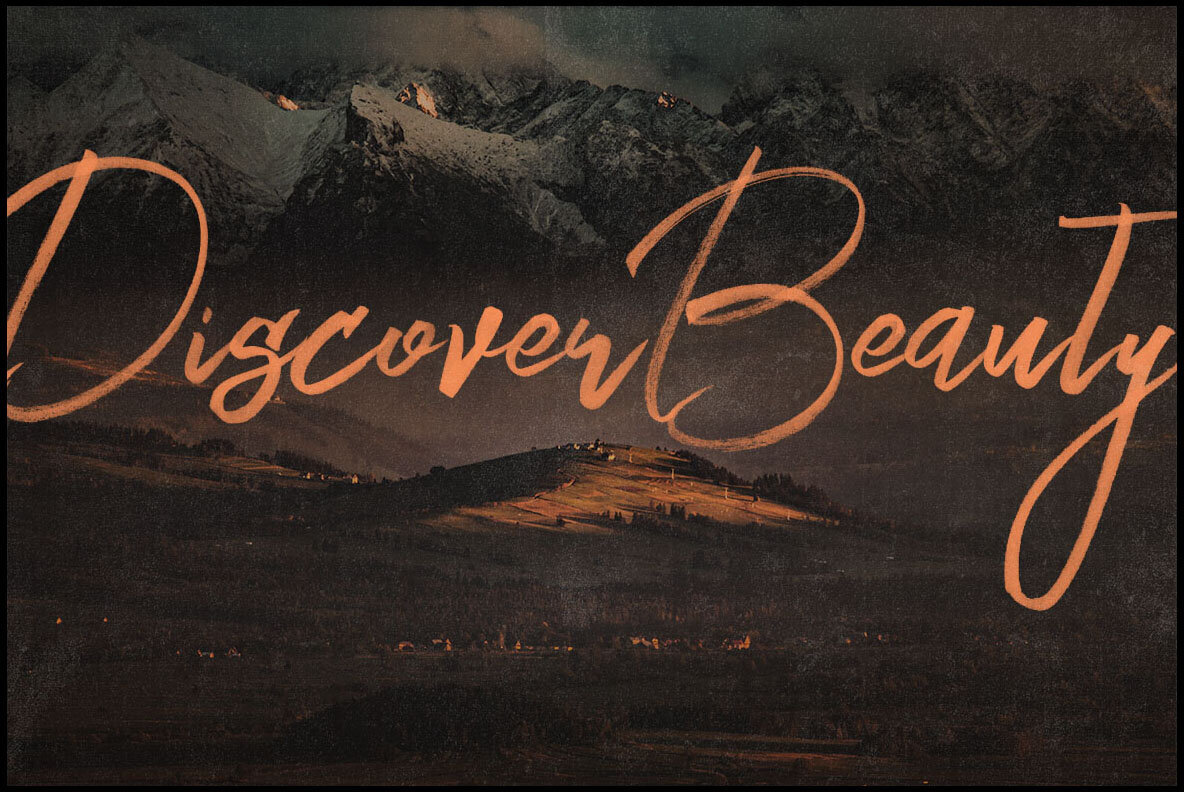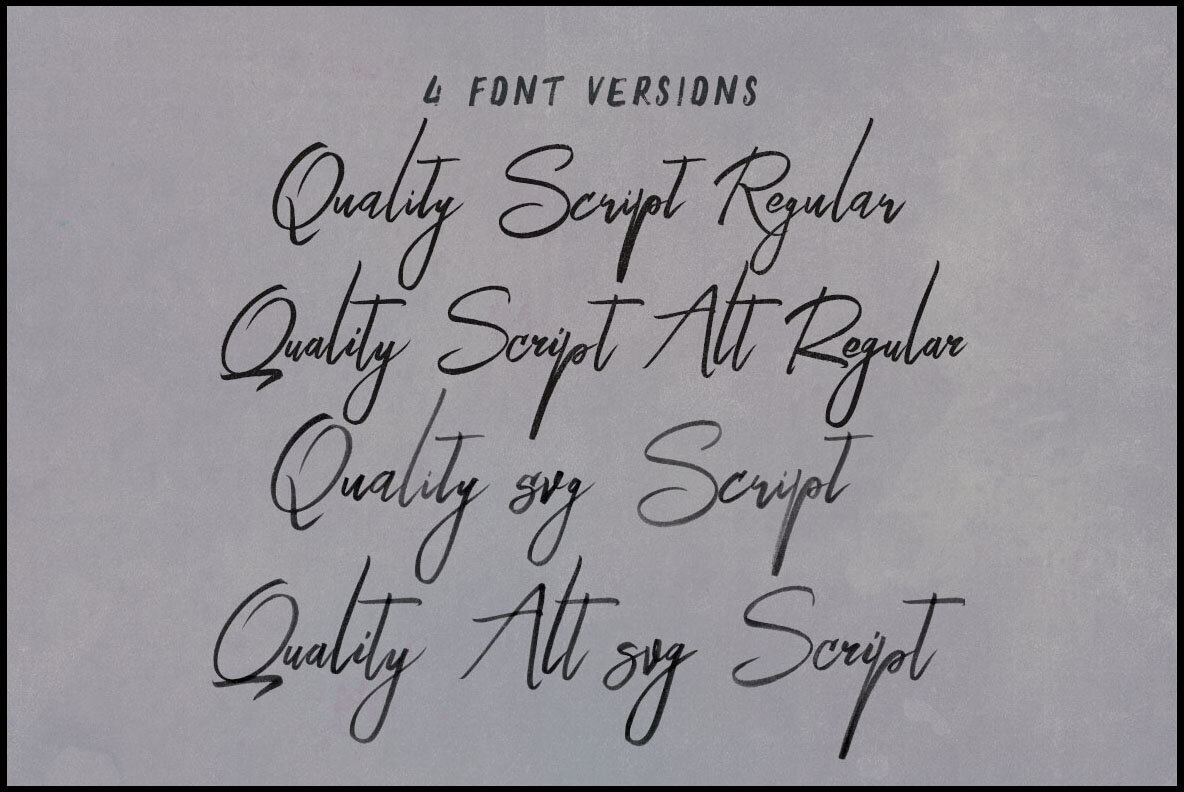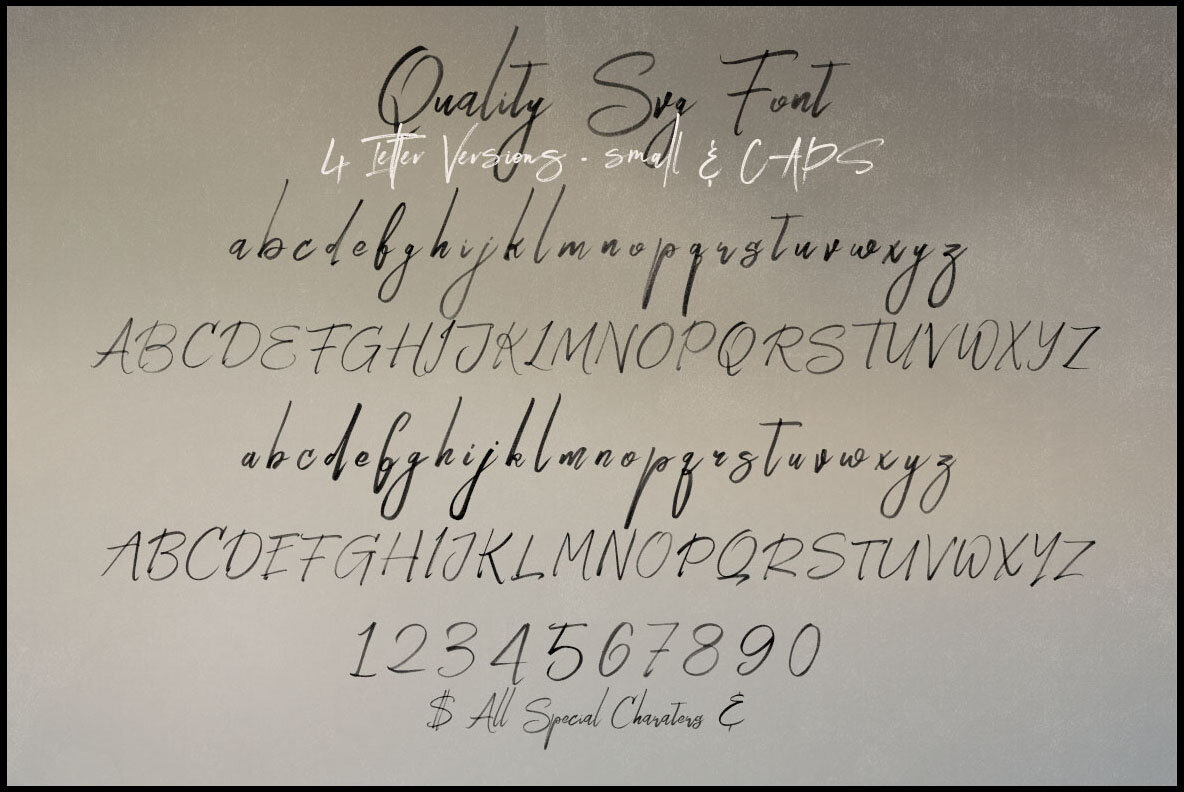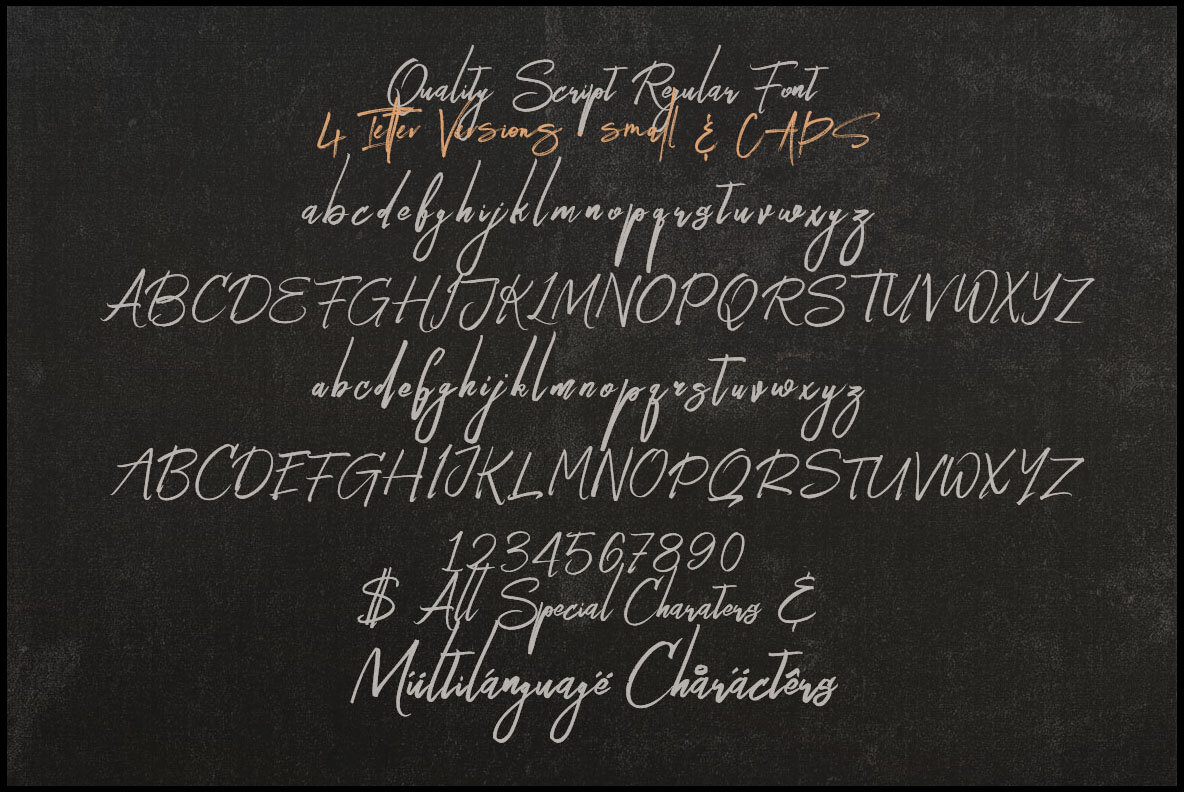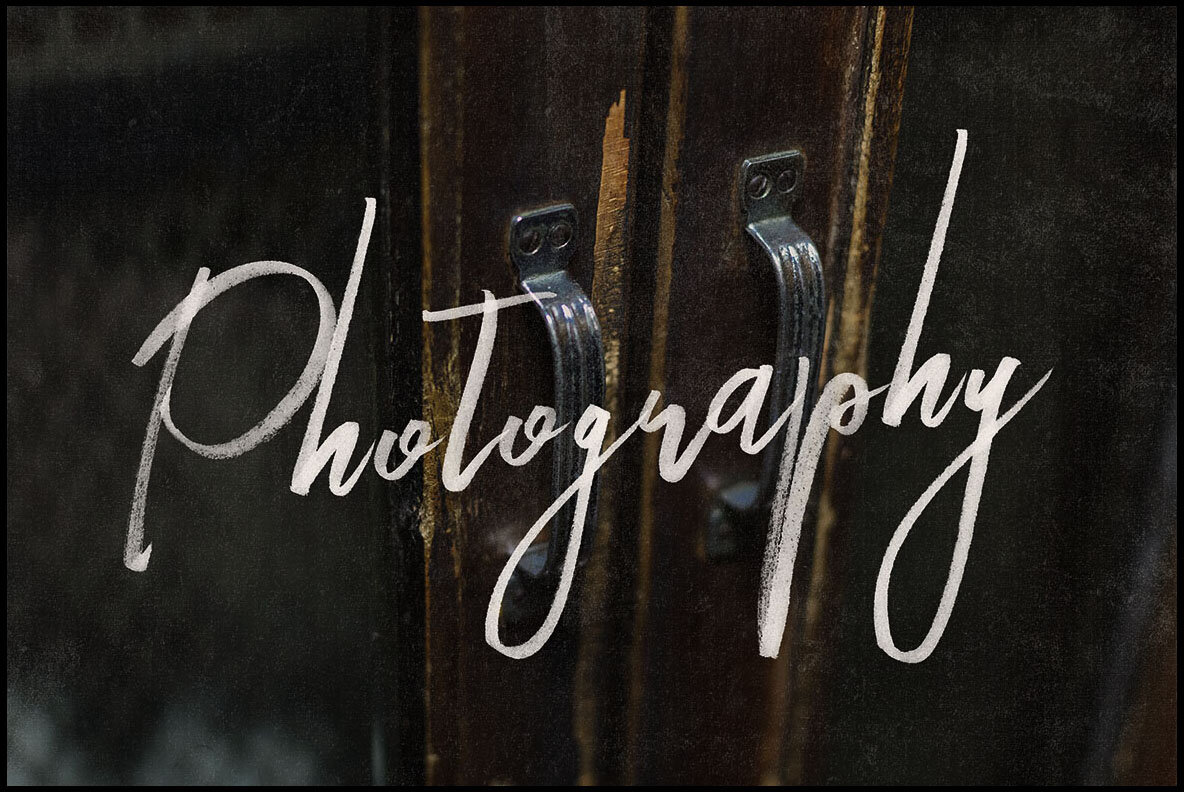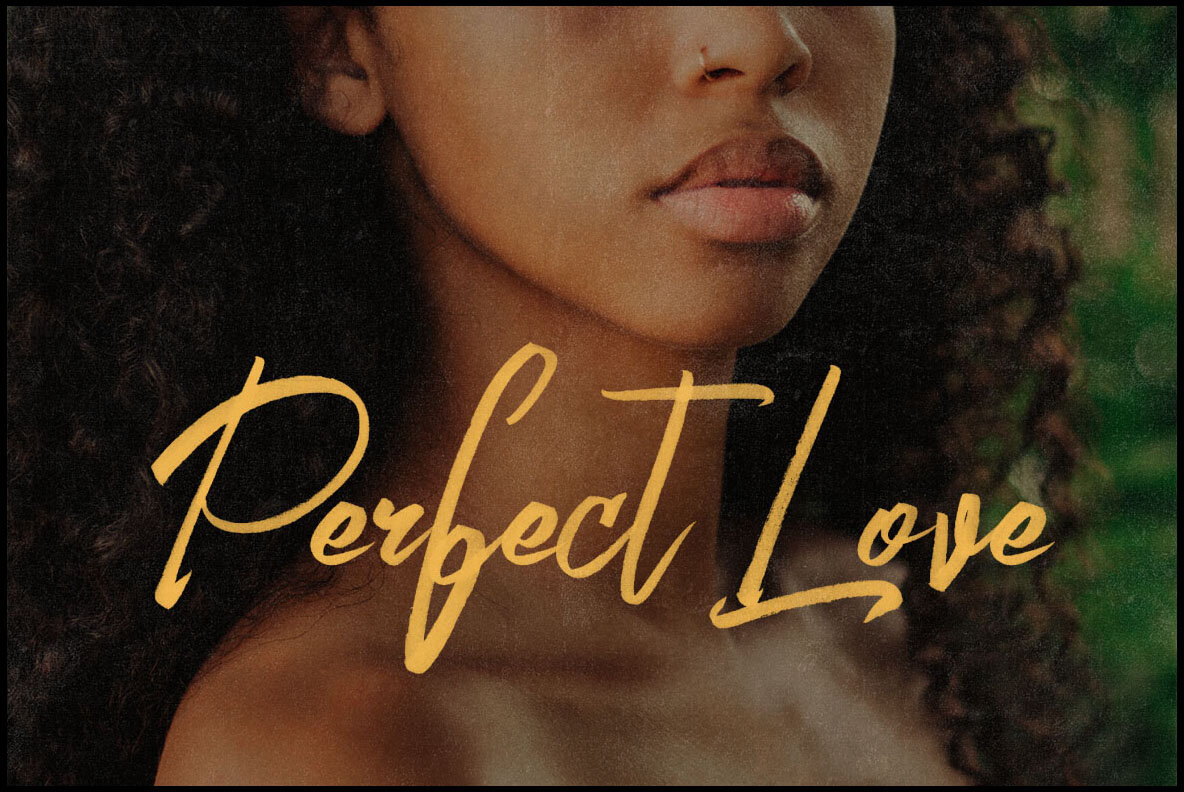
Quality SVG Font
Quality Regular
Quality alt
Enhance your creative projects with the Quality SVG font by Peter Olexa. This font offers a brush or grunge style, ideal for grunge and artistic designs that demand a unique and textured appearance.Quality SVG: Brush Style Font for Artistic Projects